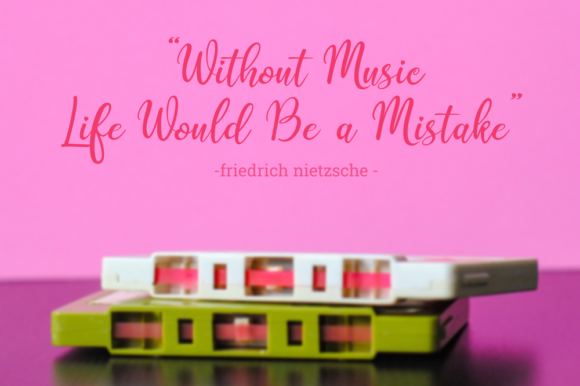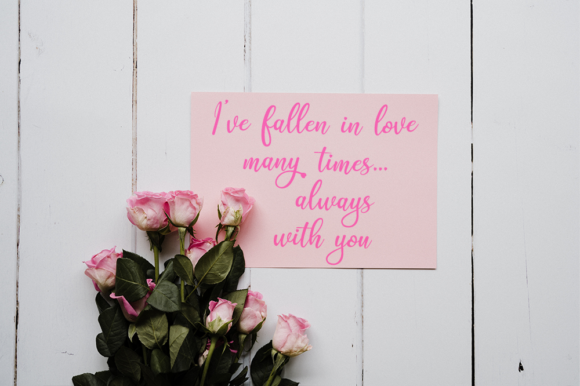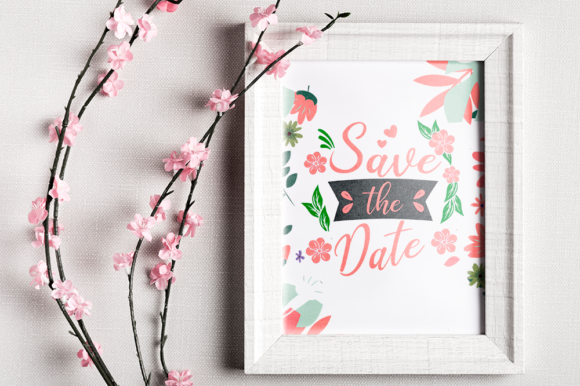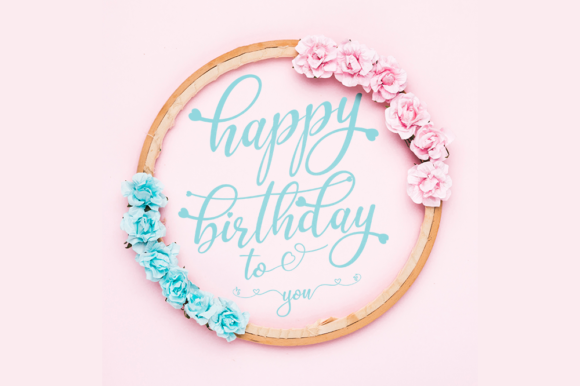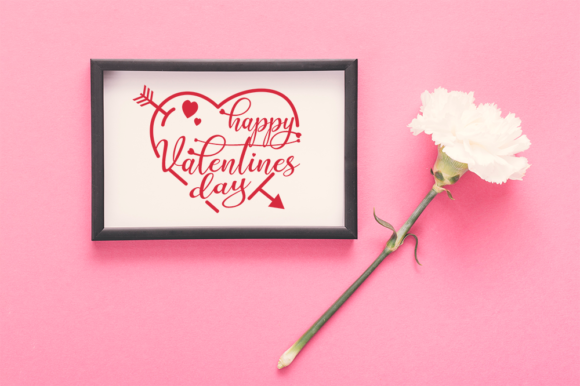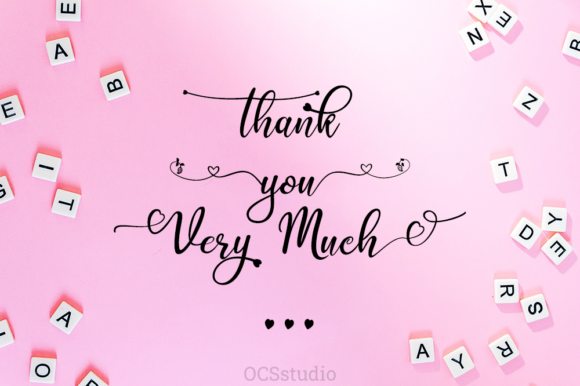
Quinsey Font
About Quinsey Font
Quinsey is a beautiful handwritten font with unique ligatures and a smooth and elegant stroke.
This font is perfect for wedding invitations, greeting cards, quotes, logos and much more.